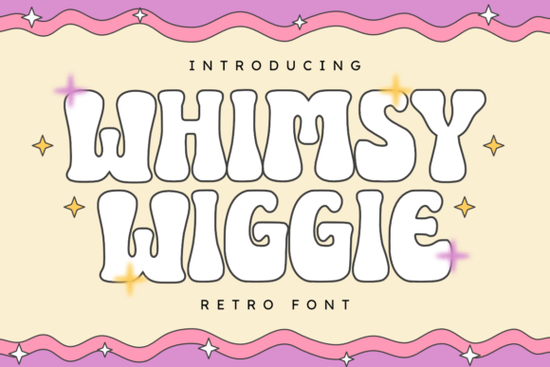
If you're working on a project that calls for a little retro charm and a lot of personality, the Whimsy Wiggle Font might be just what your design needs. With its wavy edges and bouncy letterforms, this font captures the playful spirit of 1970s design think psychedelic posters, funky record sleeves, and cheerful event flyers. It’s especially handy for music festivals, summer markets, or any promotion where you want to inject some lighthearted energy.
Unlike rigid, modern sans-serifs, Whimsy Wiggle leans into irregularity. The letters don’t sit perfectly straight; they wiggle, sway, and dance across the page. That intentional imperfection is what gives it character and why it stands out in crowded visual spaces like social media graphics or printed merchandise.
What kinds of projects work best with Whimsy Wiggle?
This font shines when used as a display typeface that is, for headlines, logos, or short bursts of text where impact matters more than readability over long passages. Here are a few real-world uses:
- Festival and event posters – Its groovy vibe pairs naturally with live music, art fairs, or community gatherings.
- Retro-themed branding – Coffee shops, vintage clothing lines, or ice cream parlors looking to evoke nostalgia.
- Print-on-demand products – T-shirts, mugs, and tote bags with upbeat slogans benefit from its cheerful rhythm.
- Social media graphics – Eye-catching quotes or announcements that need to feel fun, not formal.
Because of its distinctive style, it’s best paired with a clean, neutral supporting font. You wouldn’t want two “loud” fonts competing for attention. For contrast, consider something minimal like Emoren, which offers geometric clarity without stealing the spotlight.
How does it compare to other playful display fonts?
Not all whimsical fonts are created equal. Some lean cartoonish, others go full comic book. Whimsy Wiggle sits in a sweet spot: it’s stylized but still legible, nostalgic but not kitschy.
Each of these fonts serves a different mood, but they share one thing: they’re designed to communicate tone instantly. That’s the power of a well-chosen display font it tells part of your story before a single word is read.
Is Whimsy Wiggle easy to use for beginners?
One tip: because of its wavy baseline, avoid using it in all caps for long phrases it can become hard to read. Instead, mix uppercase and lowercase naturally, or use it for short titles where each letter has room to breathe.
Fonts like Whimsy Wiggle remind us that design doesn’t always have to be serious to be effective. Sometimes, a little wiggle is exactly what your message needs to stand out and smile while doing it.